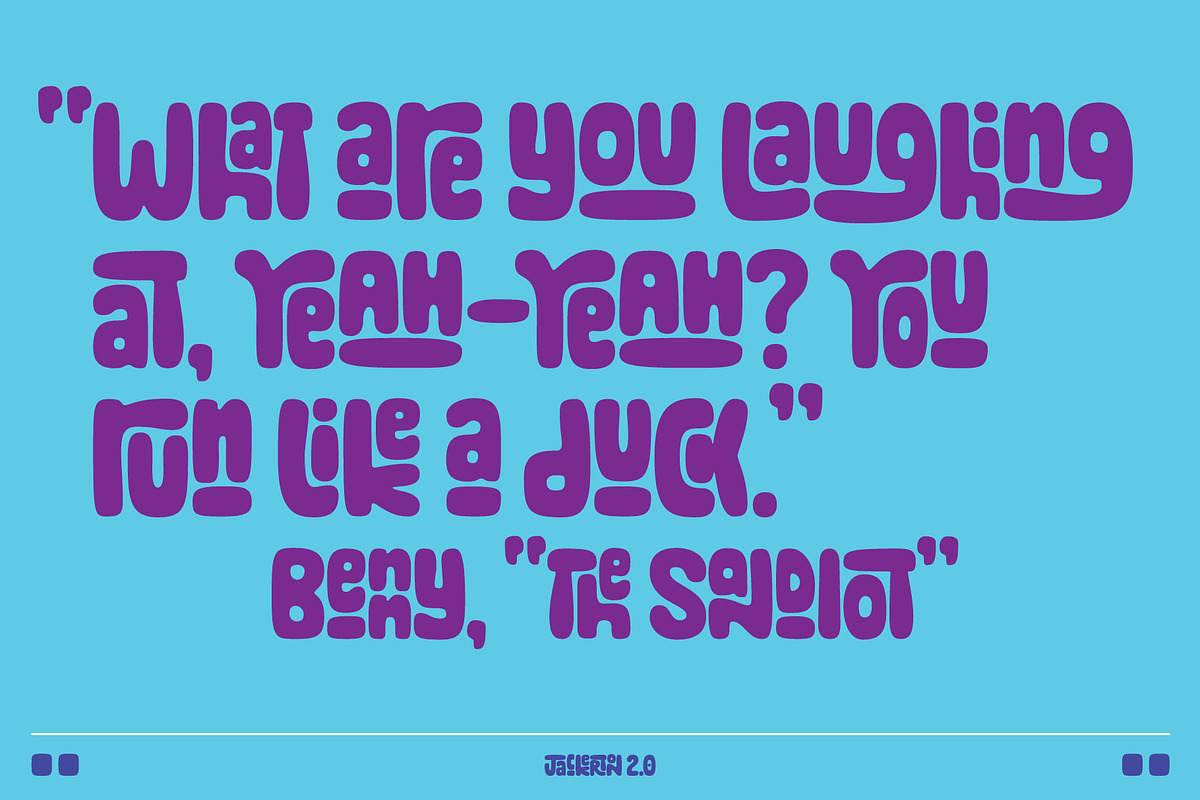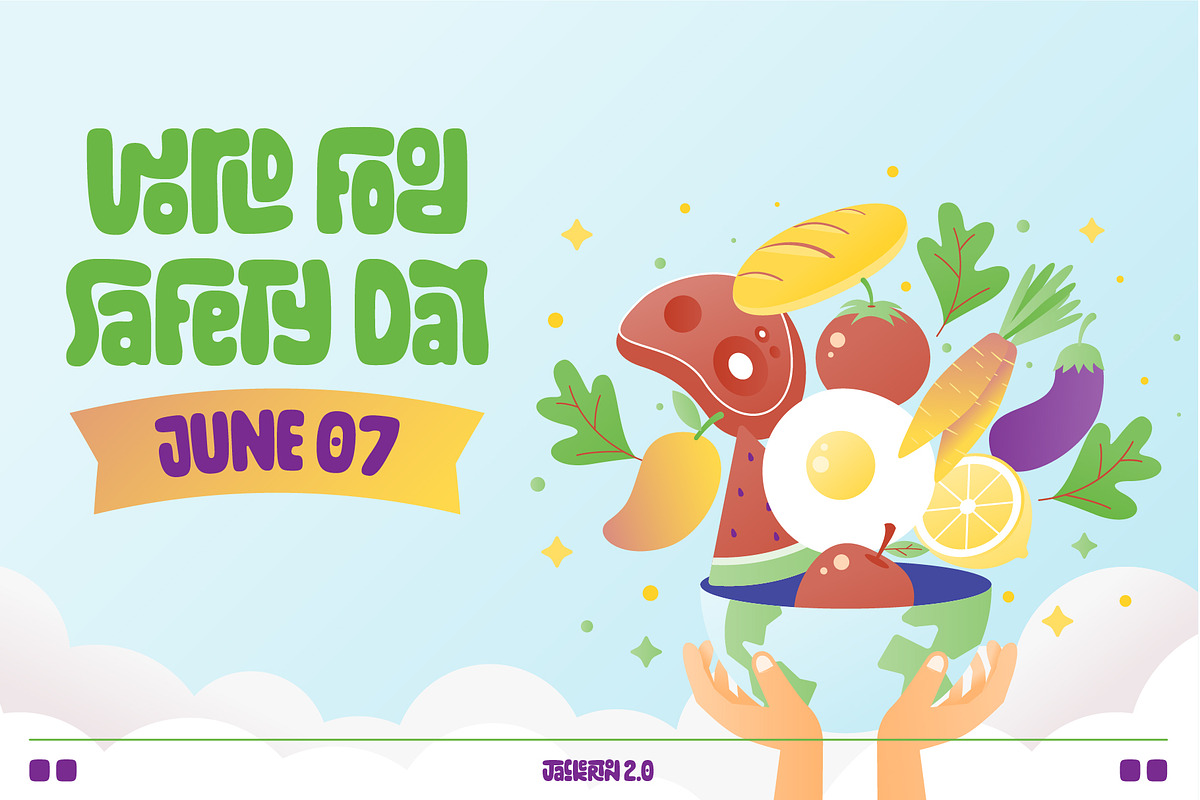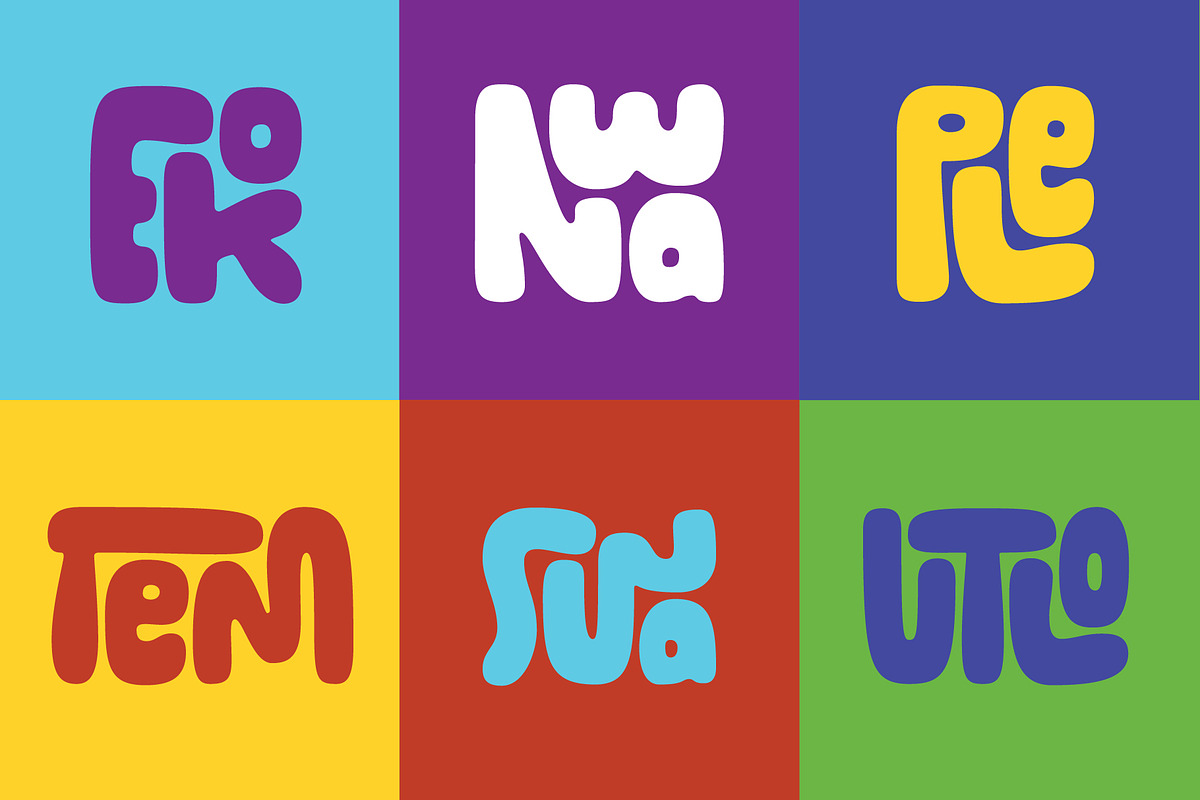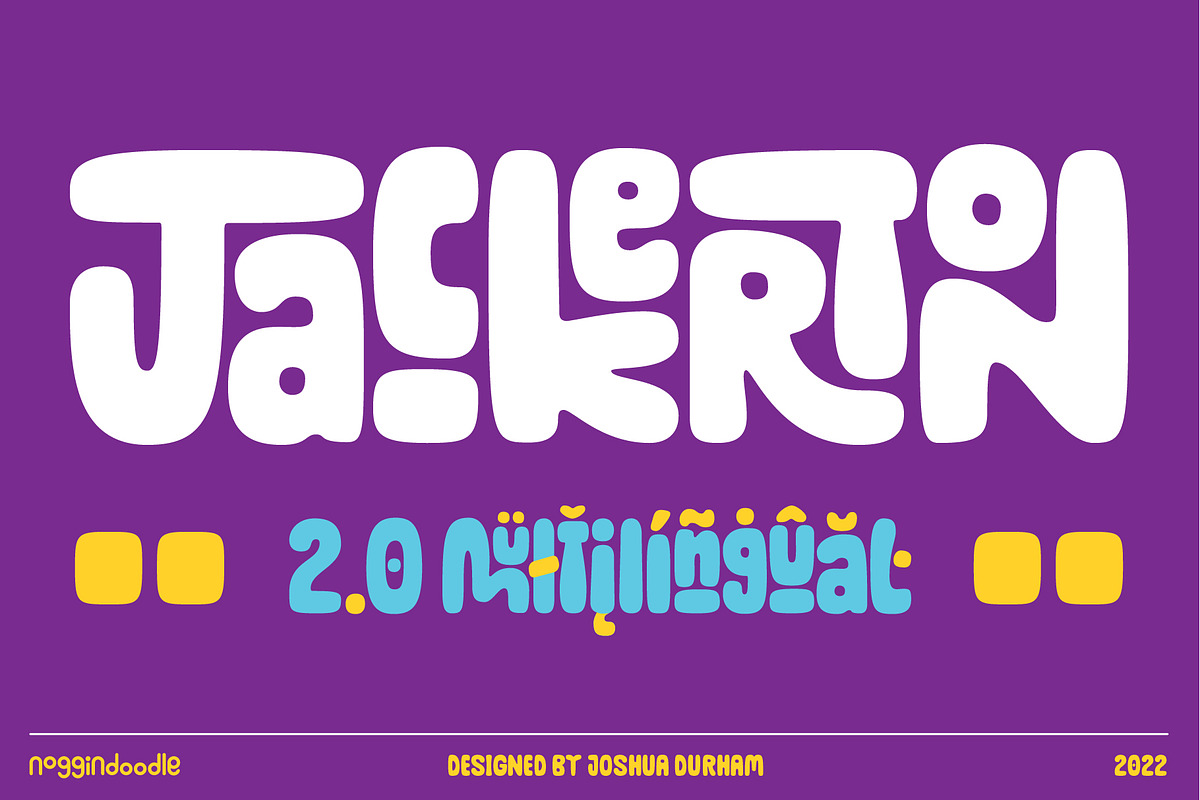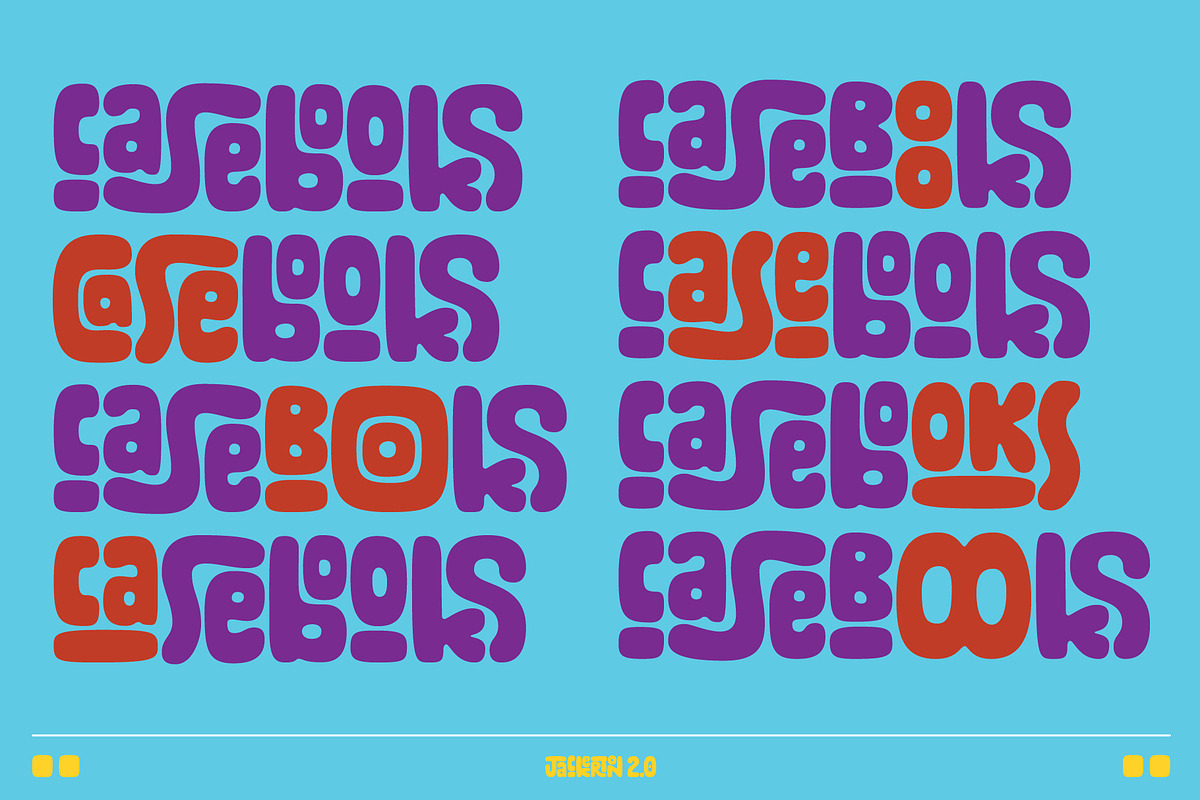
Jackerton Font
Jackerton is a playful, child-like typeface inspired by my father's doodles. Every word is a puzzle with pieces changing and shifting as you type.
All 348 original glyphs have been completely redrawn from the ground up with smoother curves and consistent widths throughout.
Multilingual support for over 100 Latin-based languages. A whole bunch of creative license has been taken with the diacritics. I am an English speaker. If anything in your language is inadvertently unusable or offensive, please let me know so I may work those changes into a future update.
I have spent innumerable hours scrutinizing over 50,000 words in over 100 languages to make sure each combination of letters fits together precisely. Please let me know if you come across words that look wonky.
- 2,425 new glyphs have been added.